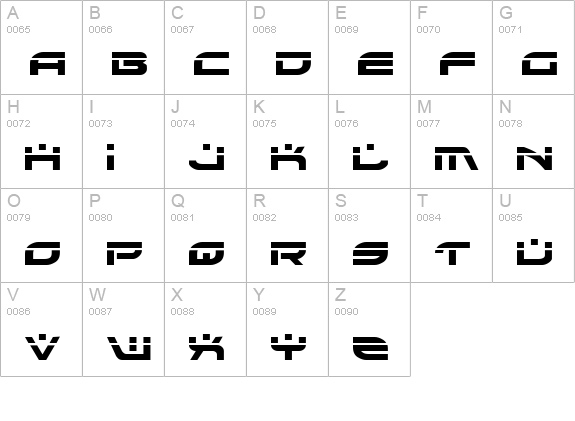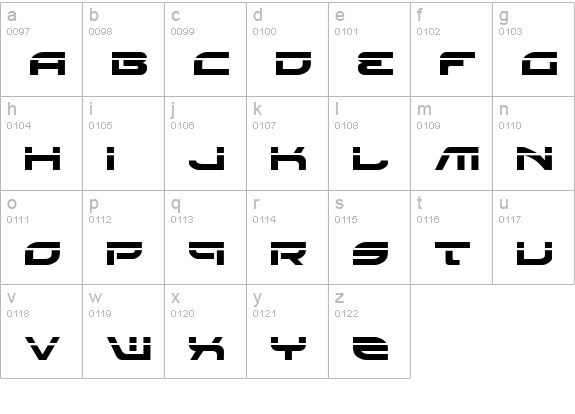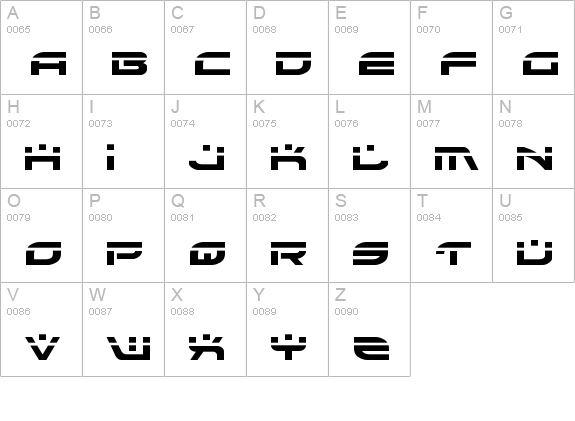
Battlefield Laser Font Details
Battlefield Laser font is a futuristic and dynamic typeface that perfectly captures the essence of cutting-edge technology and innovation. With its sleek and sharp design, this font is ideal for projects that require a modern and edgy look. The clean lines and geometric shapes of Battlefield Laser give it a bold and commanding presence, making it a great choice for titles, headlines, and branding materials. What sets Battlefield Laser font apart is that it is available for free download at FontsMarket.com. This means that designers and creatives can easily access this striking font without any cost, making it a valuable resource for a wide range of projects. Whether you're working on a sci-fi movie poster, a tech startup website, or a futuristic logo design, Battlefield Laser font will bring a touch of sophistication and style to your work. Download it today and elevate your designs with this impressive and versatile typeface.